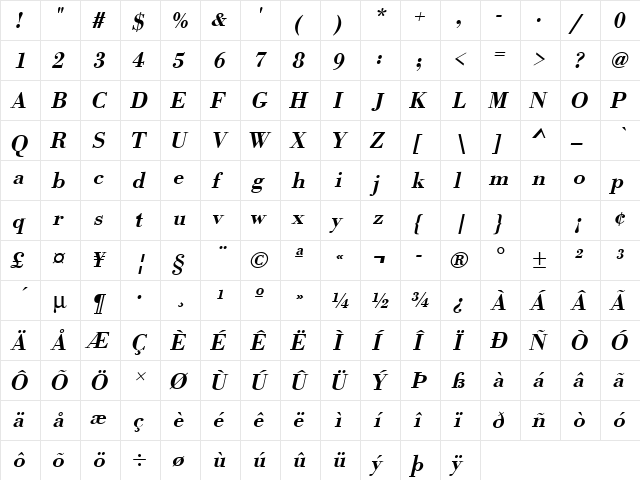
URWBodoniTMed Oblique
Design Context for URWBodoniTMed Typeface
URWBodoniTMed takes a measured approach to typography — its balanced proportions and neutral character make it a reliable workhorse for both digital and print work. The slanted form adds forward momentum and visual energy.
Pro Tip: Try URWBodoniTMed for annotation and caption copy alongside an upright companion — the contrast in angle creates a dynamic but ordered typographic system.